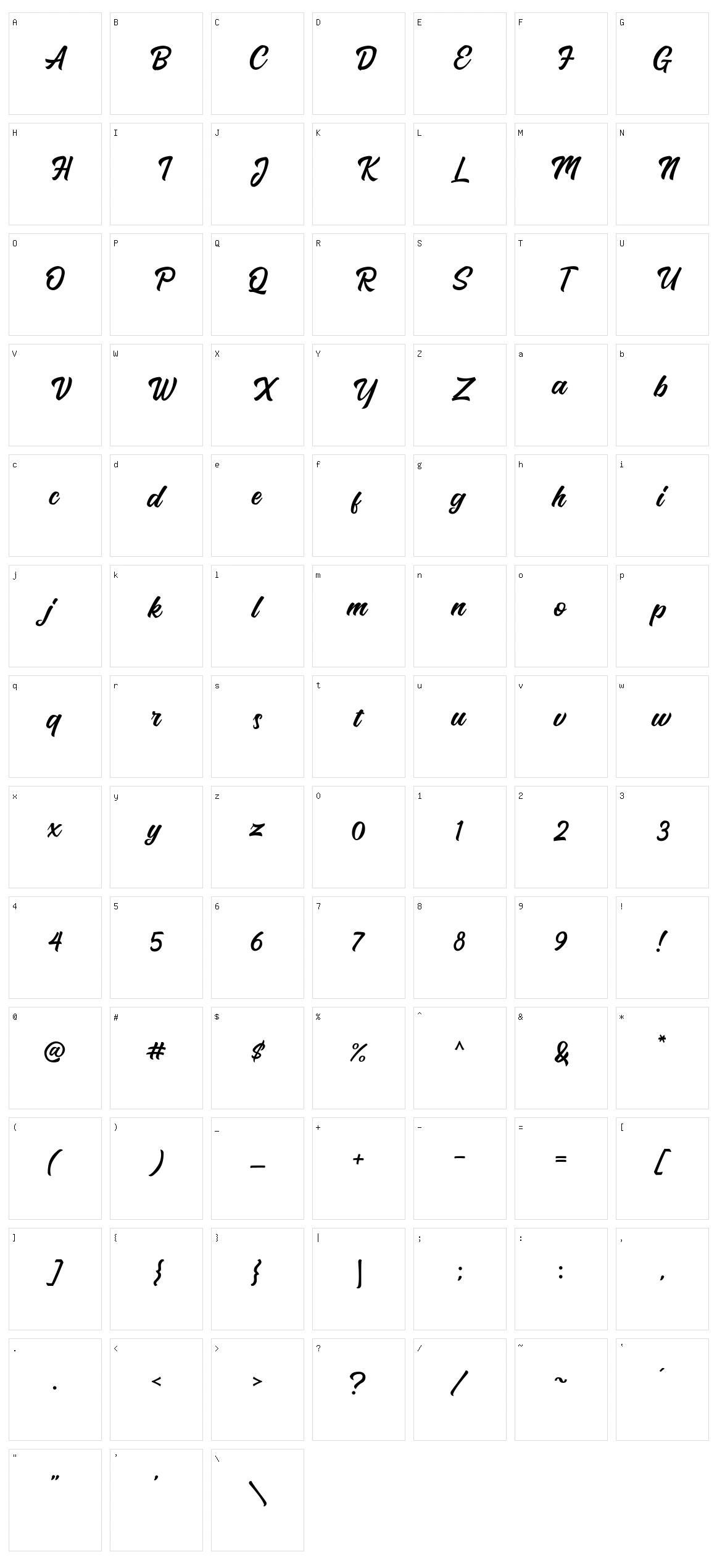
The free font Hadrey is carefully designed by Vultype, showcasing a thoughtful balance of creativity and usability and falls under the Old-School font style. When you download the ZIP file, it contains only 1242.4 KB of font files, making it lightweight and quick to download. Please review the license details below to understand permitted usage and distribution rights. If license information is not available, we recommend using this font for personal projects only or contacting the author directly for commercial usage permissions.